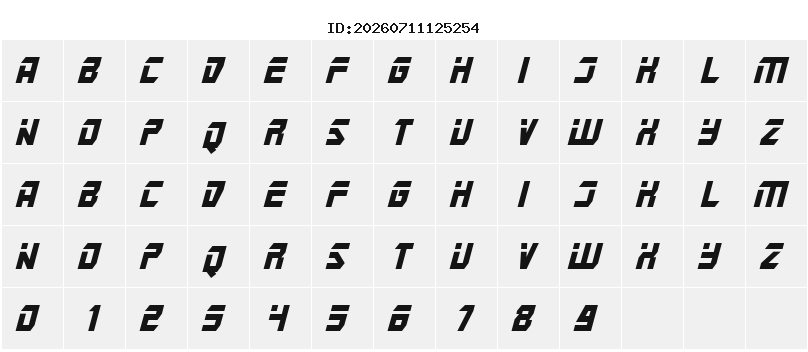
Mars Police Preview
• Font Name: Mars Police
• Font ID: Mars Police
• Full Font Name: Mars Police Italic
• Version: Macromedia Fontographer 4.1 11/18/01
• PostScript Name: MarsPoliceItalic
• Copyright: (C)2001 Blambot Fonts. Designed by Pat Brosseau
About Mars Police.ttf
Mars Police.ttf is a modern, elegant sans-serif font designed for ultimate readability and visual harmony. Perfect for branding, headlines, web design, and print materials.